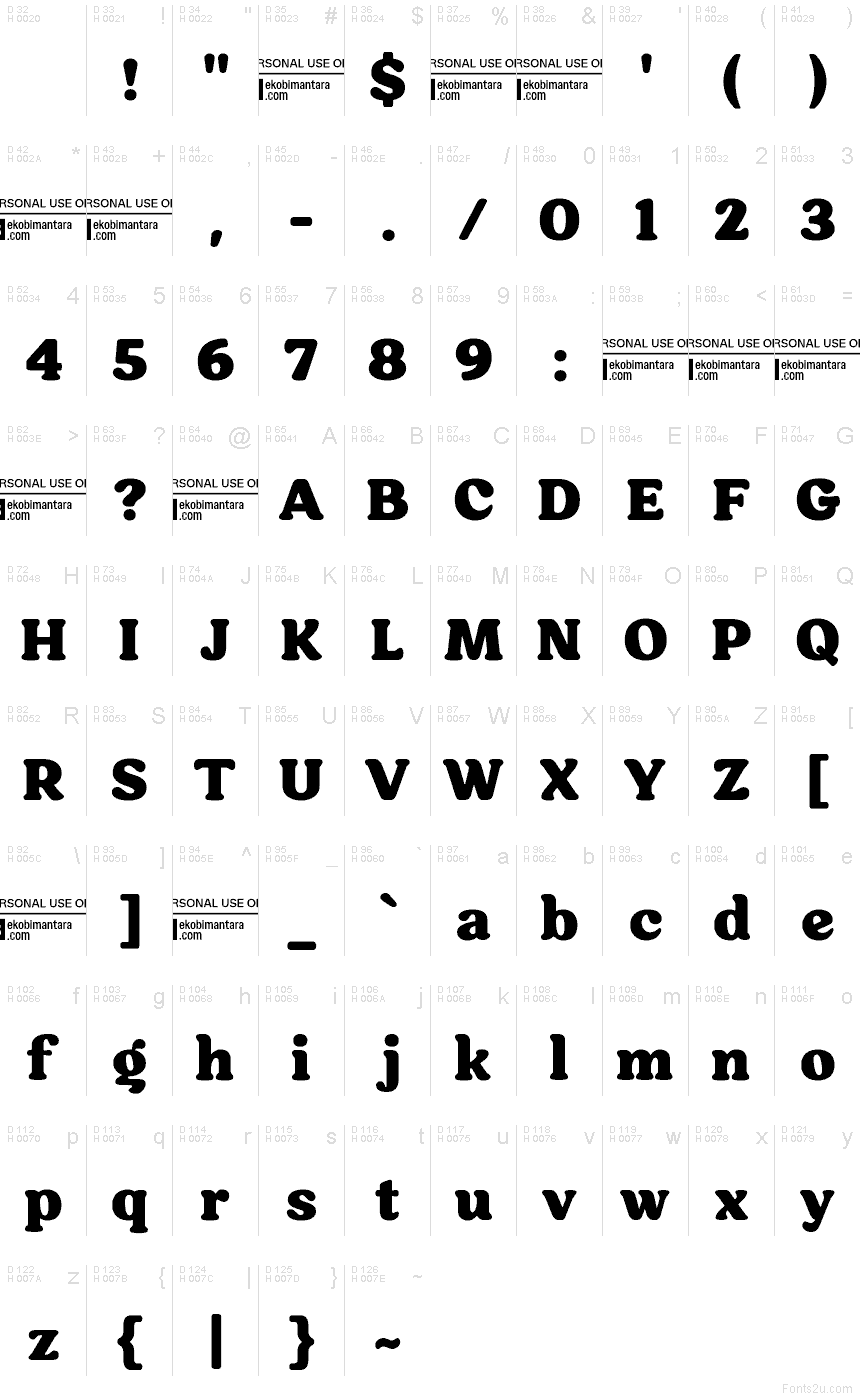
Hornbill Trial Black
Hornbill Black font by Eko Bimantara is a free black retro display font. Rooted in the Hornbill family, it stands out with plush, puffed serifs and syrupy stroke transitions that feel inky and substantial without turning clumsy. The counters stay open and the rhythm is steady, so headlines come off bold and charming rather than shouty.
This free font shines on vintage-flavored posters, café menus, boutique packaging, event branding, editorial openers, and storefront signage. Using Hornbill Black gives you that warm, 70s glow with modern spacing that holds up at large sizes; a touch of extra tracking lets the curves breathe. Pair it with a clean grotesk from the Hornbill family or a neutral sans to keep hierarchy crisp.